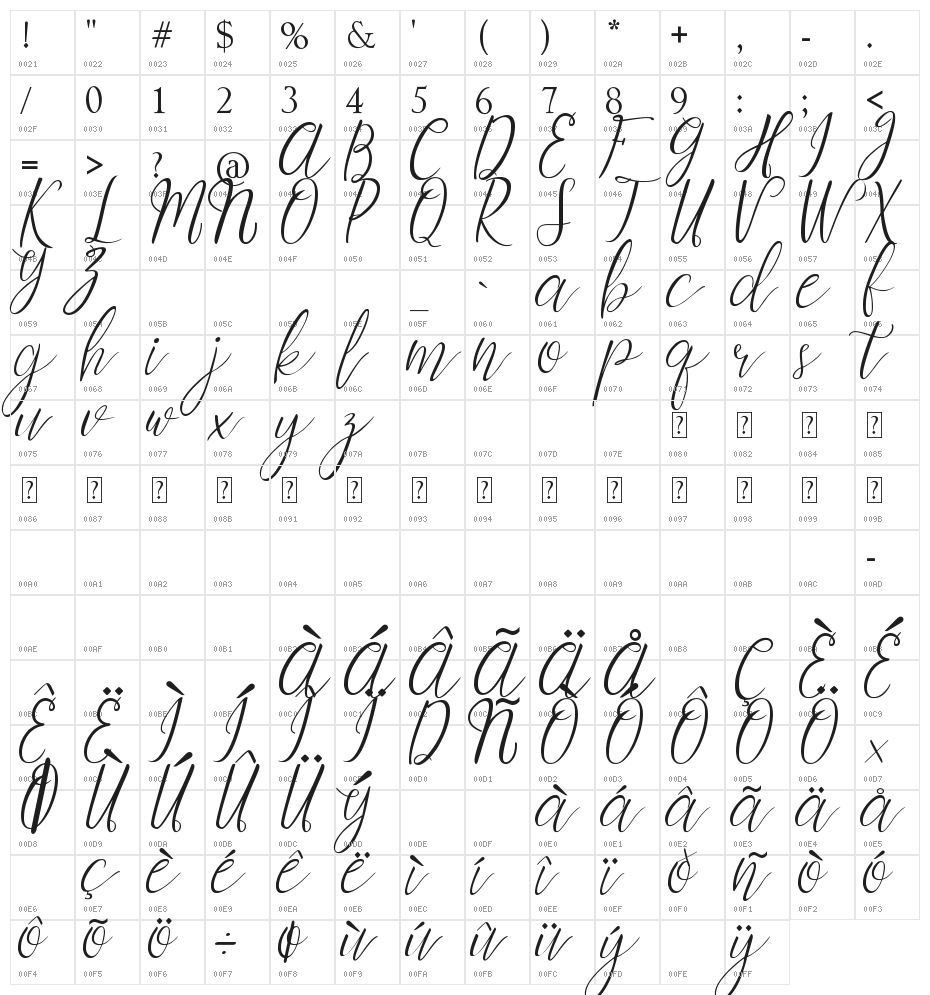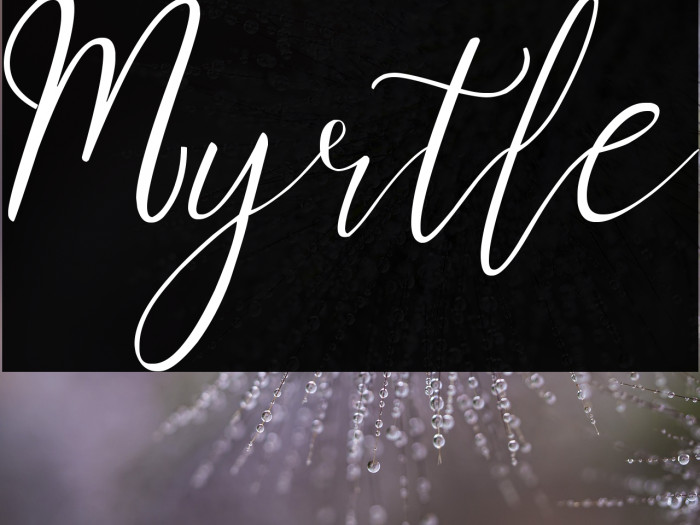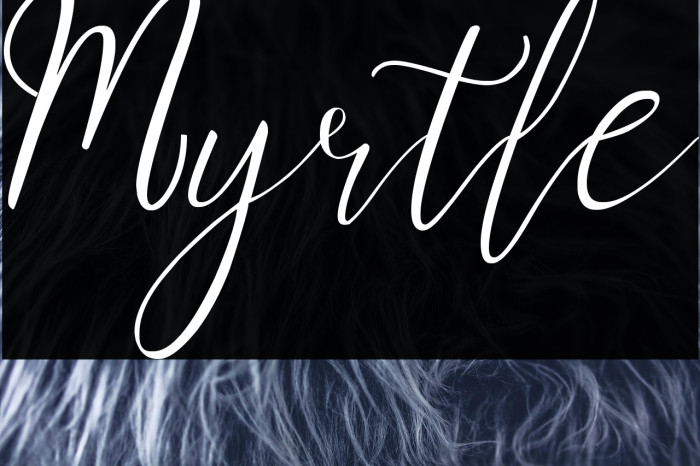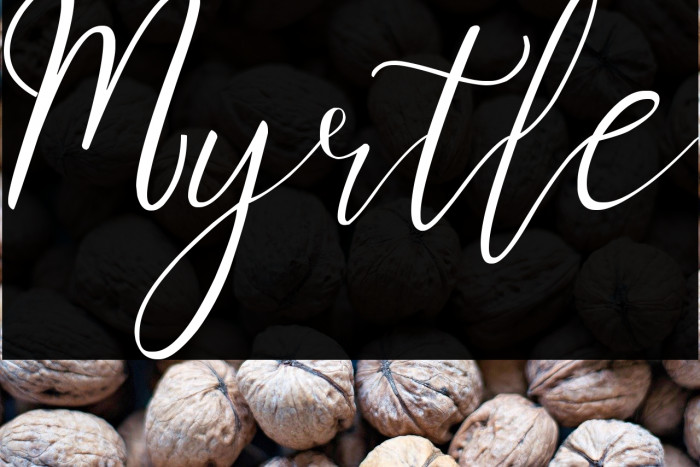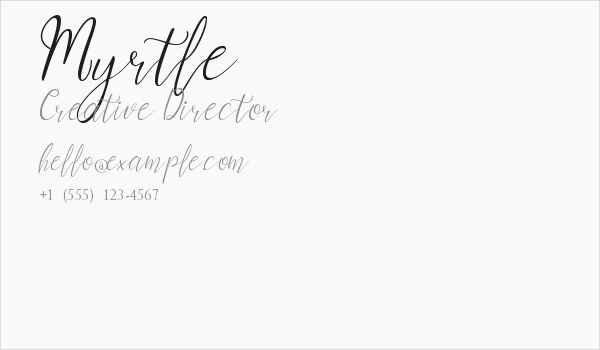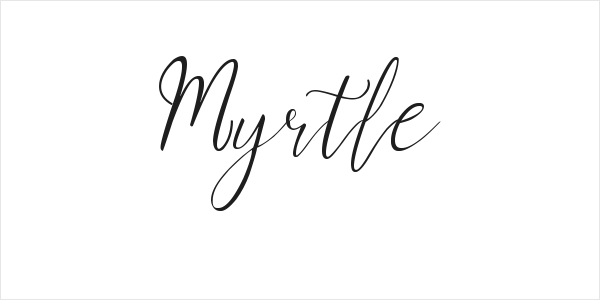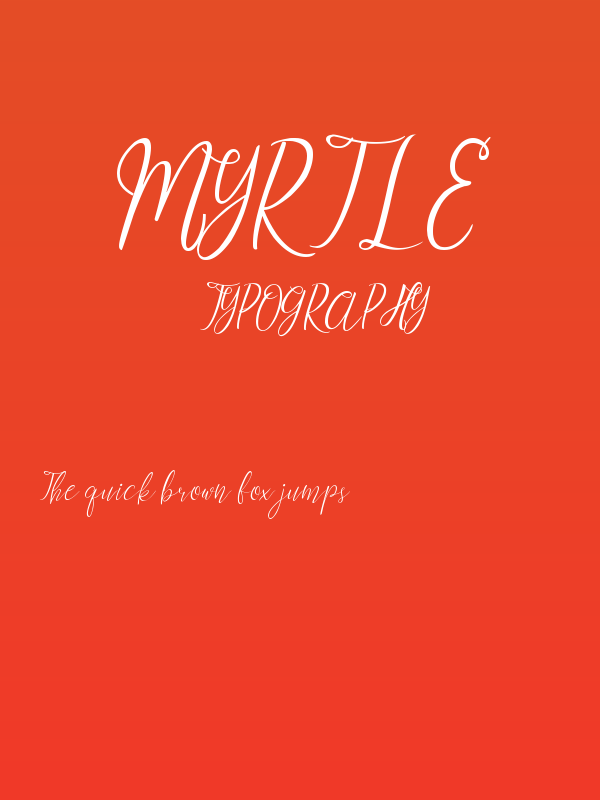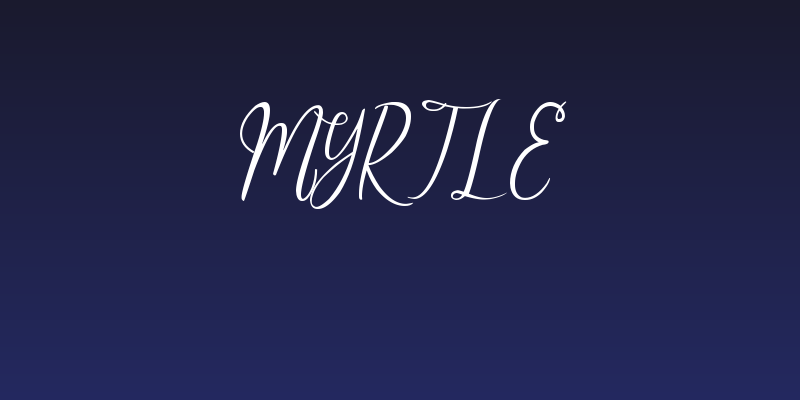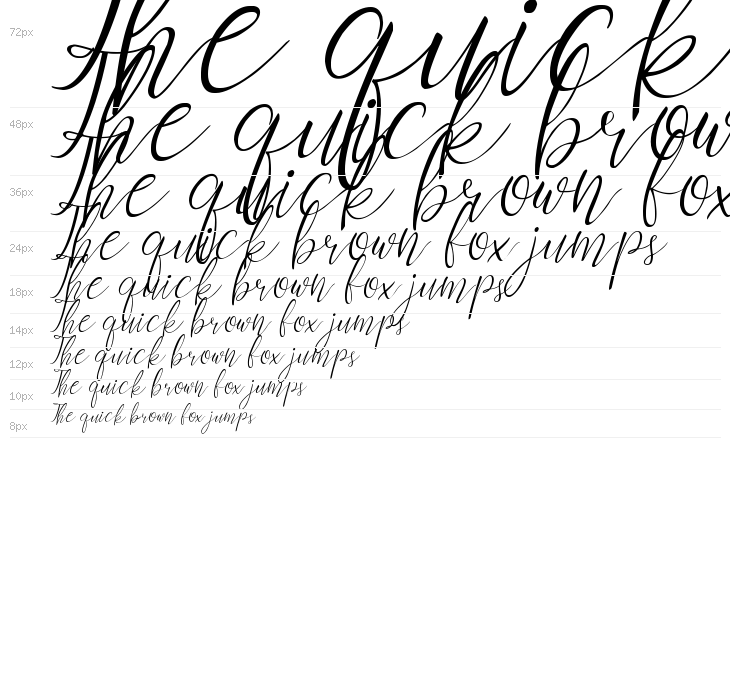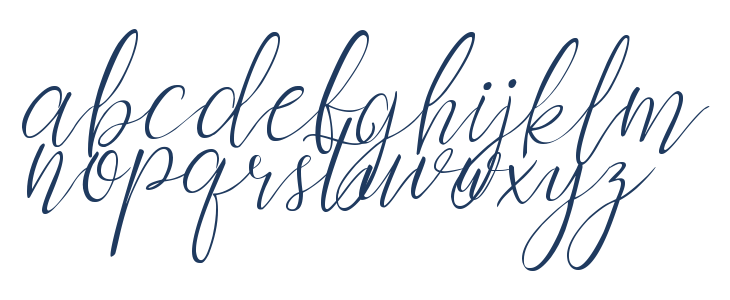
Myrtle Font
Myrtle Description
This elegant script font features flowing, cursive letterforms with a sophisticated and graceful appearance. The uppercase letters are tall and slightly slanted, with intricate loops and swashes that add a decorative touch. The lowercase letters maintain a consistent style, with smooth connections between characters, enhancing readability. The numerals are clear and distinct, complementing the overall aesthetic. Special characters are designed with the same attention to detail, ensuring they blend seamlessly with the rest of the font. This font exudes a sense of refinement and is perfect for projects that require a touch of elegance.
| Proposed Projects | Ideal for wedding invitations, elegant branding, greeting cards, and upscale packaging. |